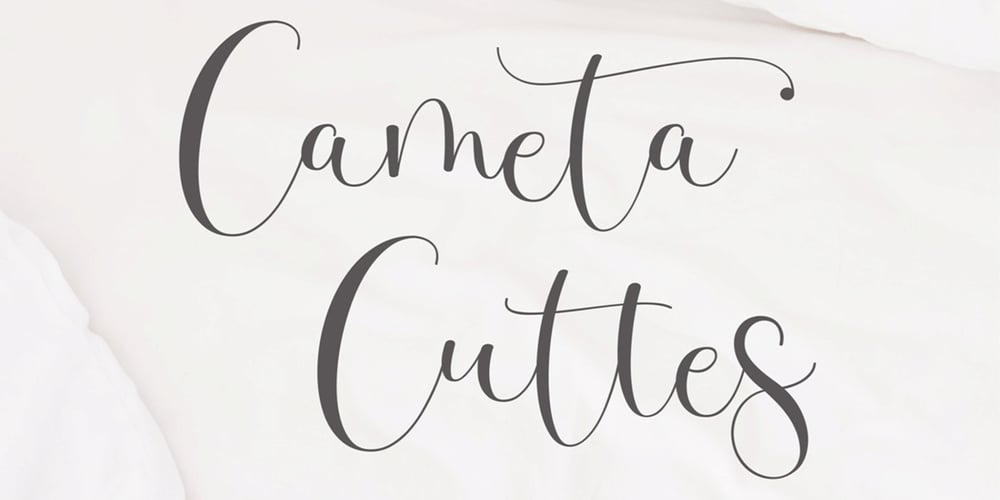
Cameta Cuttes
Cameta Cuttes font
Cameta Cuttes Font Family was designed by Gumilar Pratama Adiatna and published by Gilar Studio. Cameta Cuttes contains 1 styles and family package options. New Font : Cameta Cuttes – Beautiful Script will work perfectly for fashion, e-commerce brands, trend blogs, wedding boutiques or any business that wants to appear upscale and chic.Cameta Cuttes – Beautiful Script also Suitable for Logo, greeting cards, quotes, posters, branding, name card, stationary, design title, blog header, art quote, typography, art, modern envelope lettering or book design, happening style like handdrawn design or watercolor design theme, craft design, book title, or any purpose to make your art/design project look pretty and trendy.Features :Uppercase & LowercaseNumerals & Punctuations (OpenType Standard)Accents/Multilingual charactersPUA EncodedLigatureStylistic Set AlternateCheck my other Font here : https://gilarstudio.com/